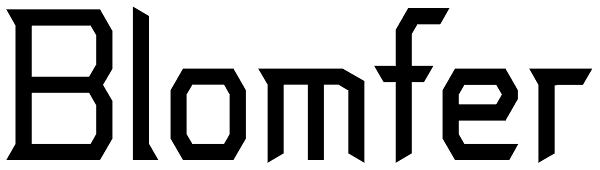
Blomfer
Blomfer is a simple, yet dynamic Graphic Typeface based on the chamfering of a simple block font. The design element of the chamfered corners also expresses as the opposite, protruding seraph like corners and angled terminations to ascenders and...